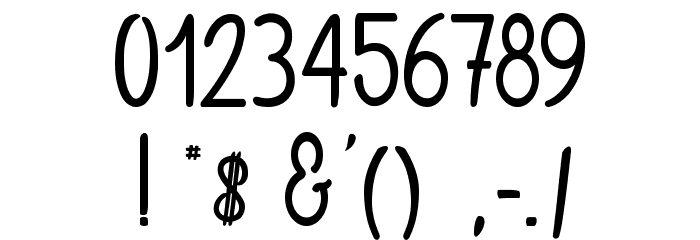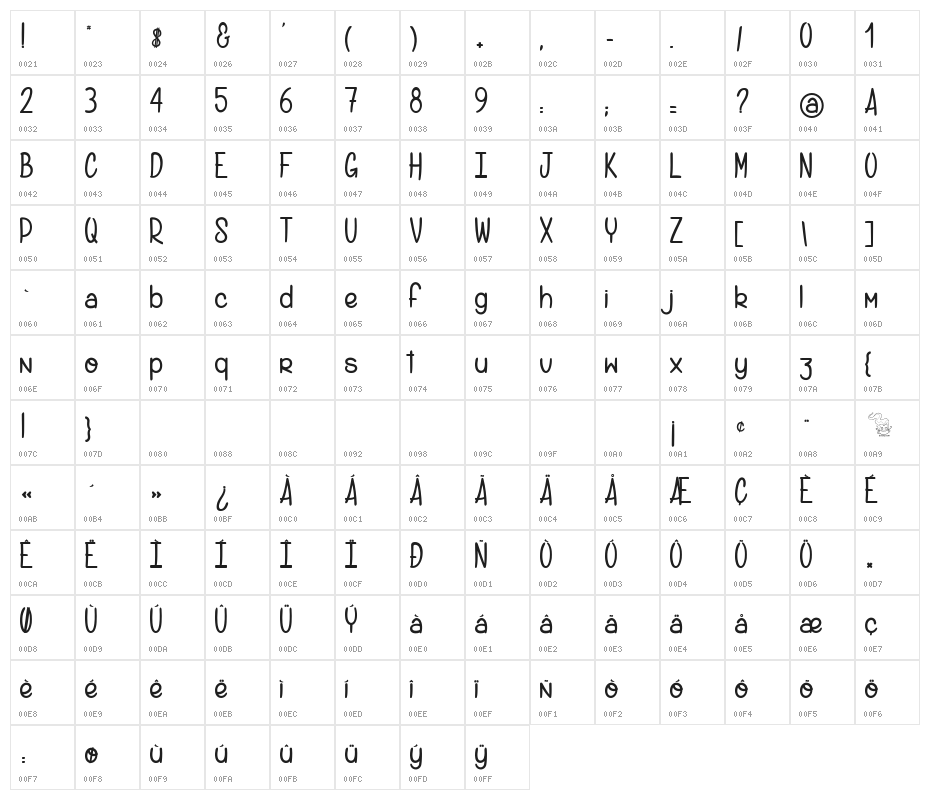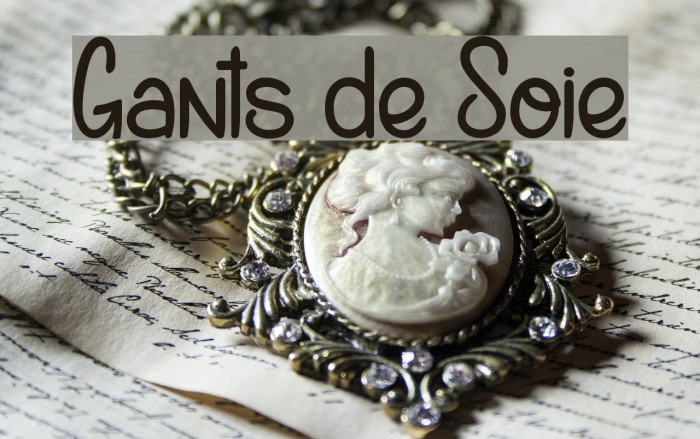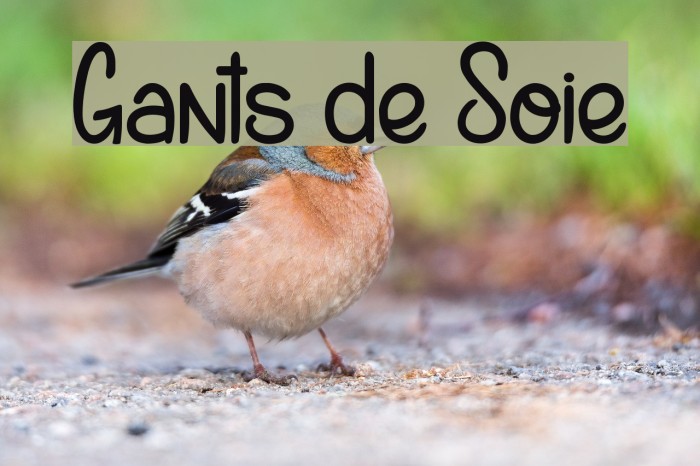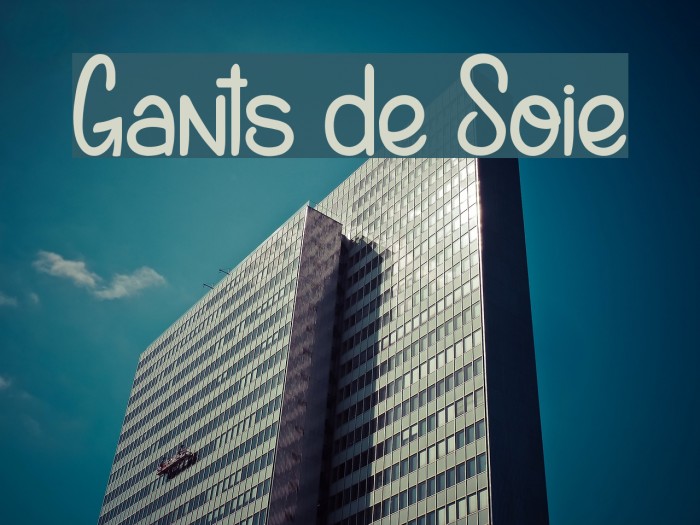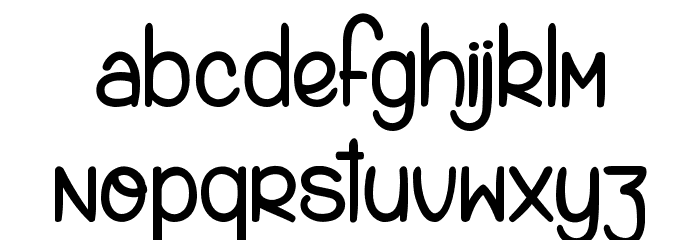
Gants de Soie Font
Gants de Soie Description
This playful and whimsical font features rounded, flowing characters that convey a sense of fun and creativity. The letters have a hand-drawn quality, with smooth curves and a slightly irregular baseline that adds to its charm. The uppercase and lowercase letters maintain a consistent style, while the numerals and special characters complement the overall design. This font is perfect for projects that require a friendly and approachable aesthetic, such as children's books, greeting cards, or playful branding.
| Proposed Projects | Ideal for children's books, greeting cards, playful branding, and creative projects. |